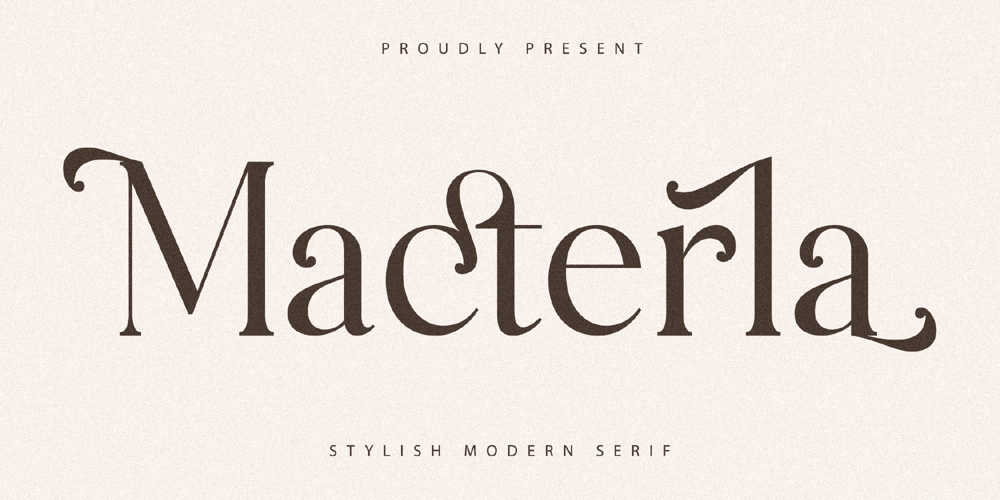
Macterla Font Family was designed by Heru Utama Putra and published by Letterena Studios. Macterla contains 2 styles and family package options. Macterla is a modern serif font with one unique style. This typeface is perfect for an elegant & luxury logo, book or movie title design, fashion brand, magazine, clothes, lettering, quotes, and so much more.